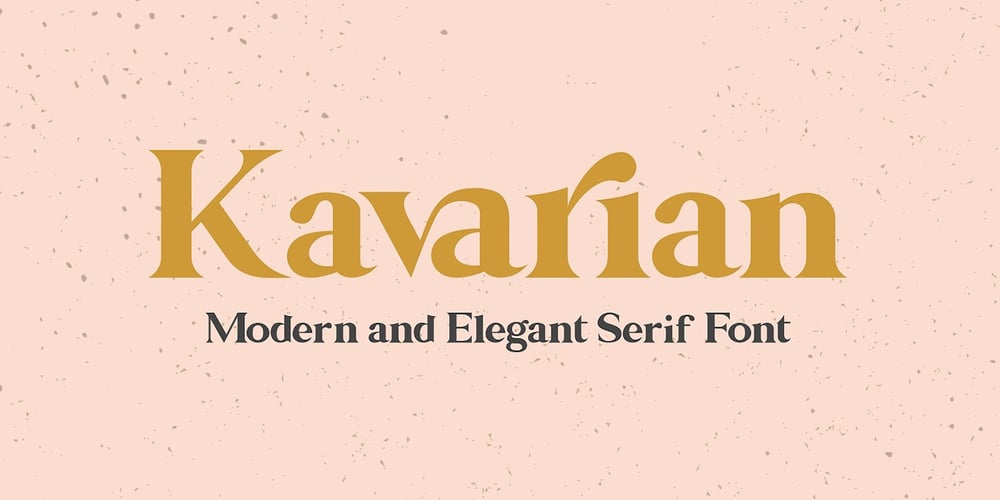
Kavarian Serif Font Family was designed by Gilang Maulana and published by Maulana Creative. Kavarian Serif contains 1 styles and family package options. Kavarian Serif is a handmade Modern Elegant Serif Handmade Typeface, which is combining modern and classic typography with some awesome alternates. Yes we went back to early 1800s, to bring classic touch on this decade.Ligatures:- va ri sn ti giFont Include:- Ligatures- Multi-lingual supportThanks for use this font.MaulanaCreative.